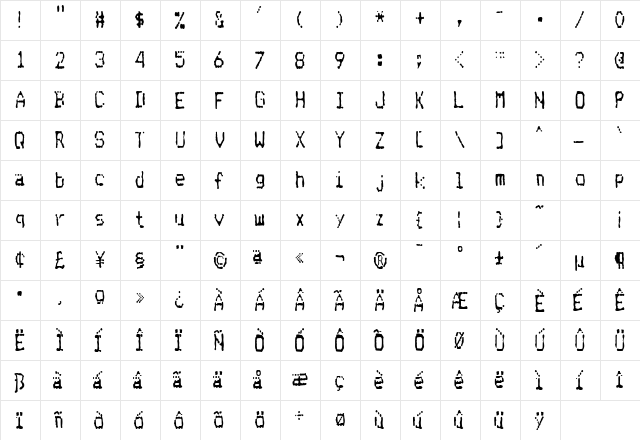
MatrixDotCondensed Regular
Design Context for MatrixDotCondensed Typeface
MatrixDotCondensed is rooted in pixel-grid construction, making it a natural fit for game UI, retro computing aesthetics, and digital nostalgia projects.
A natural choice for retro game titles, chiptune music branding, 8-bit UI, and digital nostalgia projects.
Pro Tip: Pair MatrixDotCondensed with flat colour palettes and simple geometric UI elements to reinforce its digital aesthetic.